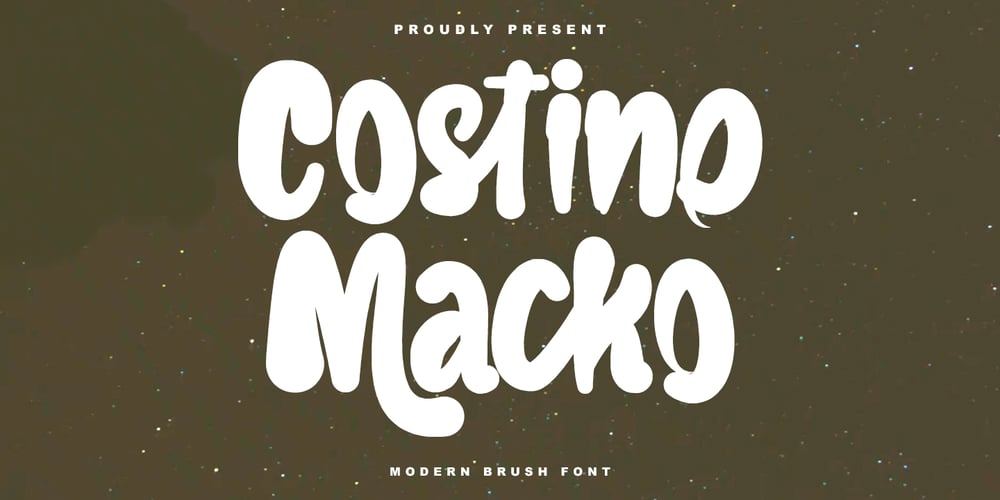
MC Costino Macko Font Family was designed by Gilang Maulana and published by Maulana Creative. MC Costino Macko contains 1 styles and family package options. Costino Macko a display font, fun character with a bit of ligatures. To give you an extra creative work. Costino Macko font support multilingual more than 100+ language.Cheers, Maulana Creative